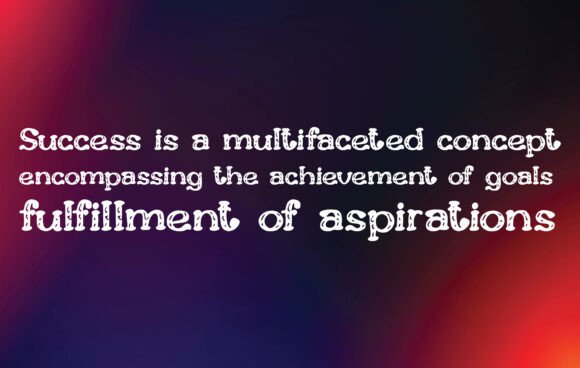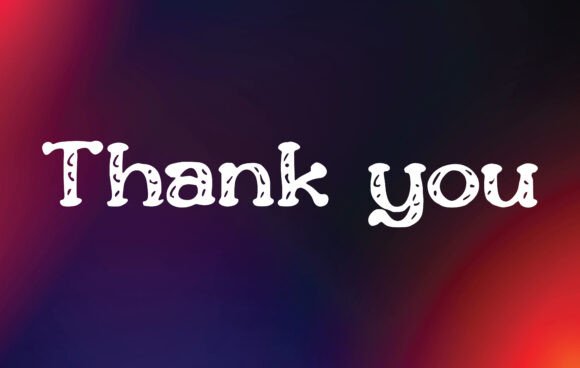
Have you ever found yourself staring at a blank canvas, wondering how to bring your ideas to life? The spark of creativity is a magical moment, but it can be fleeting if we don’t have the right tools to capture it. That’s where the Donald Font comes in – a lovely and beautiful display font designed to elevate your creative vision.
This stunning font is perfect for creating eye-catching logos, branding, and quotes that truly make a statement. With its unique charm and versatility, the Donald Font has the potential to take your projects to the next level. Whether you’re a seasoned designer or just starting out, this font is a valuable asset to have in your toolkit.
Donald Font Key Features
- Unique Characteristics: Donald Font features a unique and playful design, with bold lines and rounded edges that make it perfect for use in logos, branding, and advertising materials.
Designer Review: Donald Font
Overall, I have mixed feelings about Donald Font. Here’s what I think:
- The font’s playful, cartoonish vibe is perfect for children’s books, comics, or other projects that require a lighthearted tone.
- It comes in a range of weights, from light to bold, which gives designers flexibility in terms of styling their text.
- The font is well-suited for use in digital and print projects, making it a versatile choice for designers.
- The font’s aesthetic may not appeal to everyone, particularly those who prefer more serious or sophisticated typography.
- The characters are not particularly elegant or refined, which may make it difficult to use in high-end or luxury projects.
- The font’s design may not be suitable for use in formal or academic contexts.
Overall, I think Donald Font is a fun and quirky choice for designers who want to add a playful touch to their projects. While it may not be the best choice for every project, it’s definitely worth considering for those that require a lighthearted or humorous tone.
Getting the Most Out of Donald Font
To get the most out of Donald Font, use it in bold and italic styles to add emphasis to your text.
Use Donald Font in headings and titles to create a unique and eye-catching design.
Donald Font is commonly used in:
1. Branding and logo design.
2. Advertising and marketing materials.
3. Social media graphics and posts.
4. Print materials such as business cards and brochures.